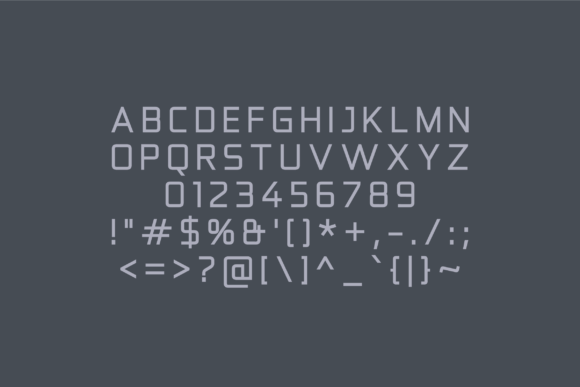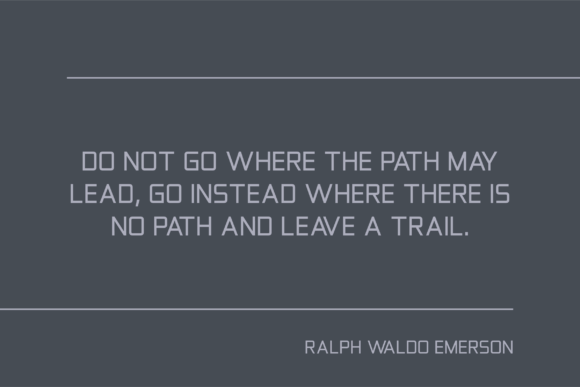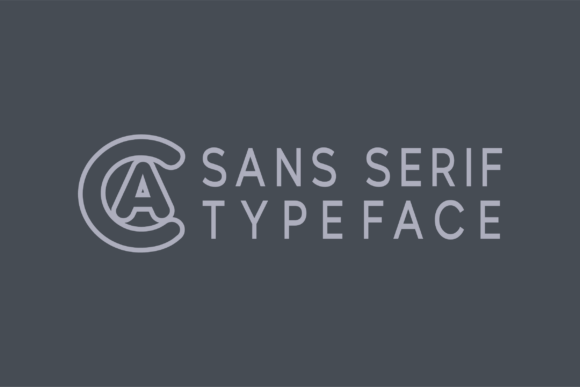
Introduction to Demosthenes Font
Welcoming Demosthenes – a contemporary, opulent sans serif font.
Replete with an assortment of uppercase letters, numbers ranging from 0 to 9, and a diverse array of punctuation marks and symbols, this typeface exudes an exceptional versatility Ideal for emblazoning logos, embellishing wedding invitations, punctuating memorable quotes, enhancing advertisements, adding gravity to print materials or drawing the reader’s eye in magazines, and so much more.